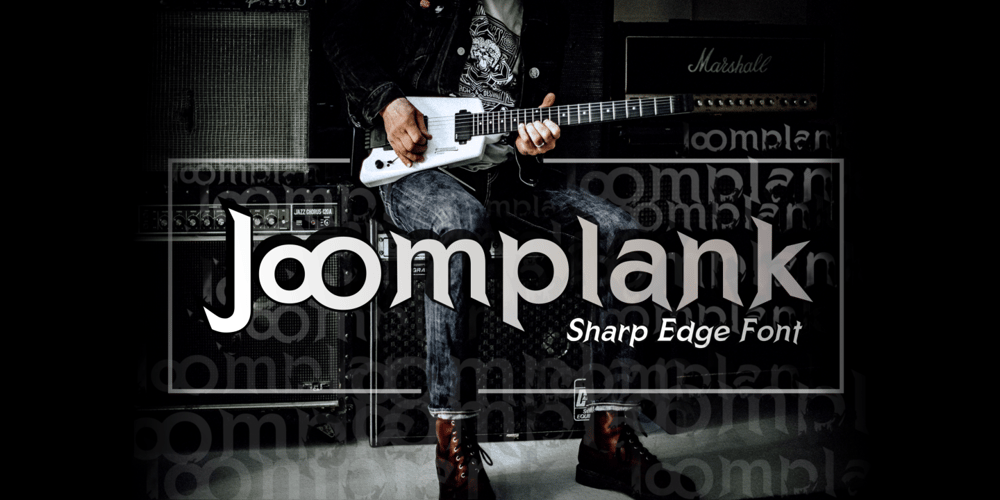
Joomplank Font Family was designed by Ahmad Zulfikar Ali and published by ZetDesign. Joomplank contains 4 styles and family package options. Joomplank is a decorative font with a pointed shape at the end of each letter. The pointed tip gives a firm impression on the appearance of your design. This font has four families that allow designs to choose according to their needs, plus an opentype feature that helps designers produce the best work. This font is very suitable for use in posters, screen printing, logos, and more.